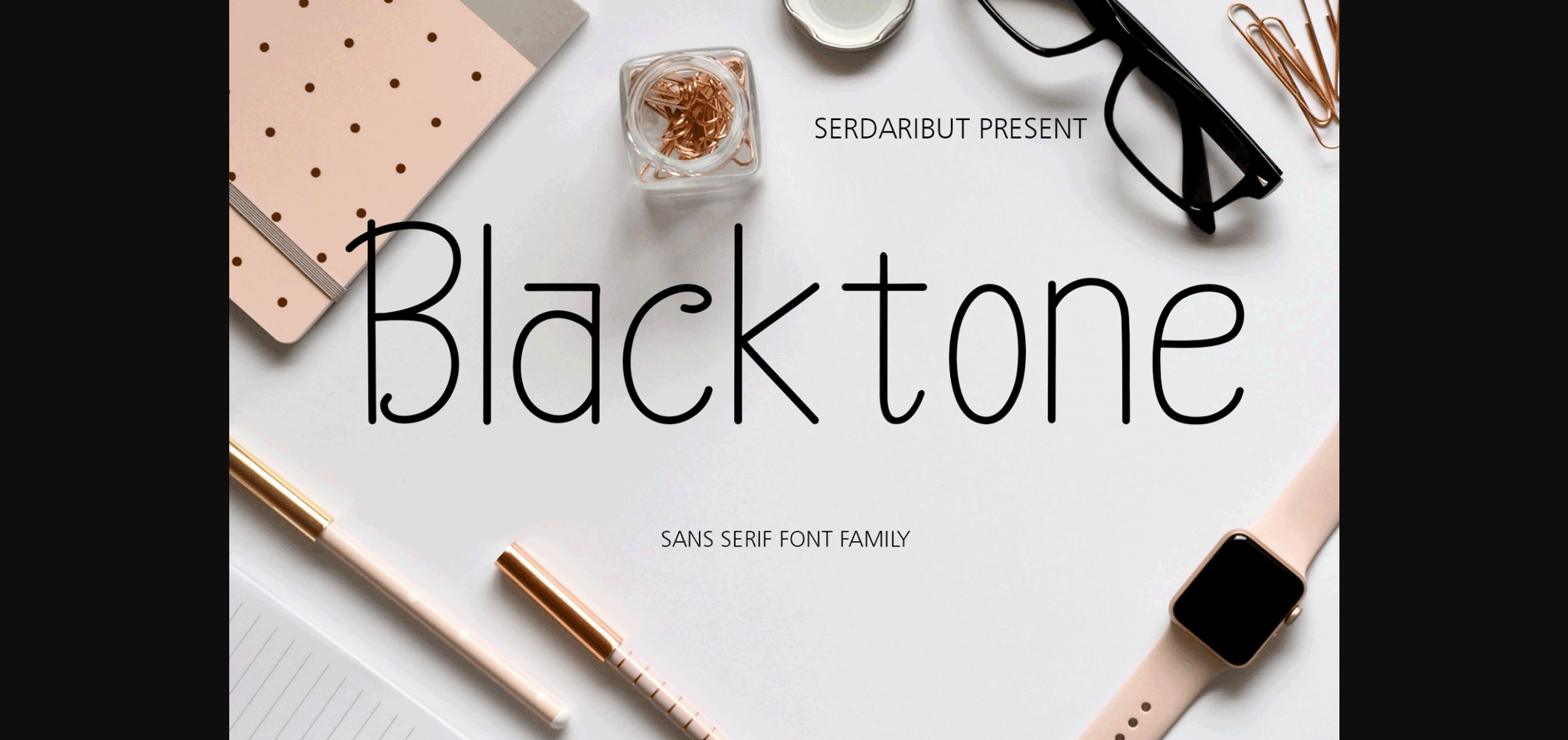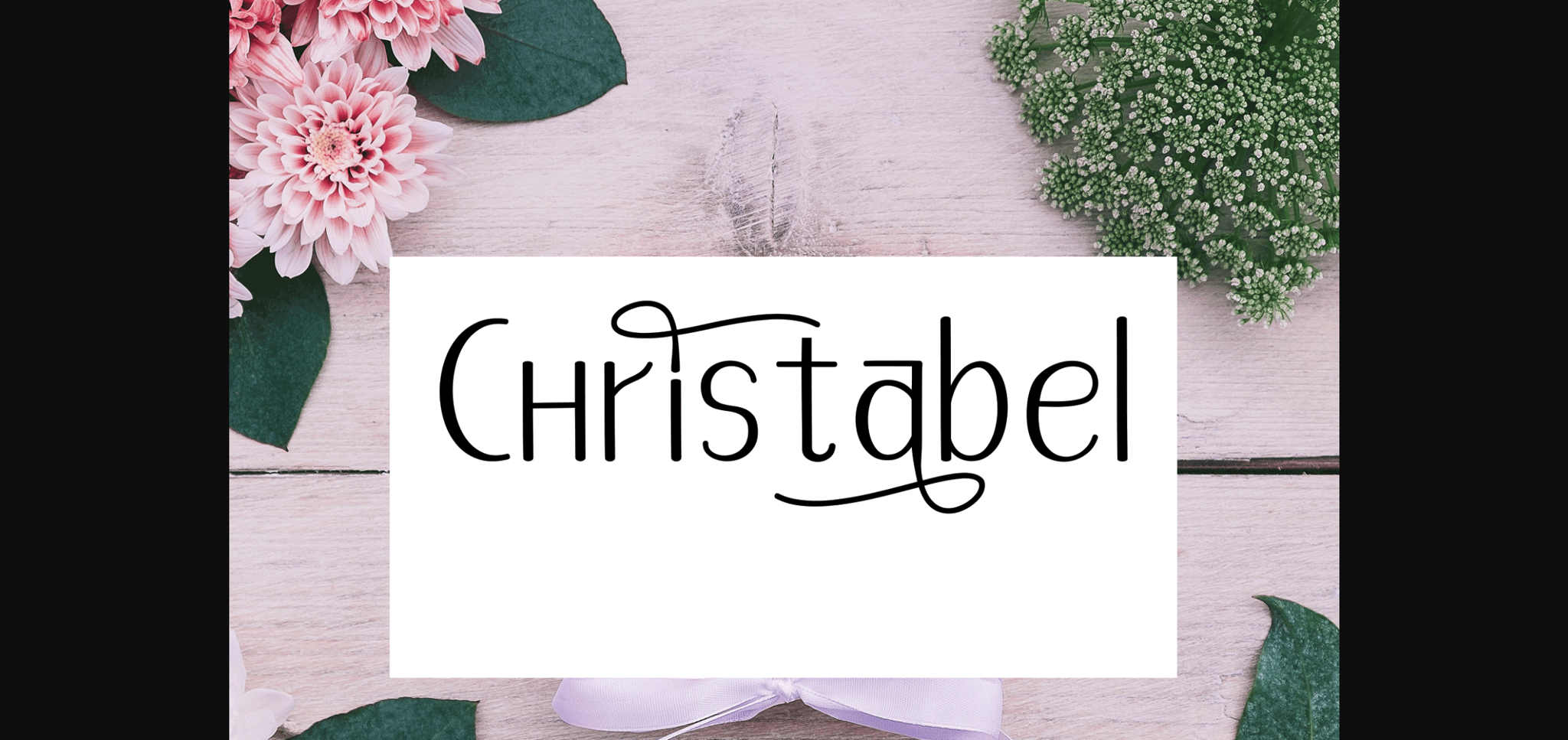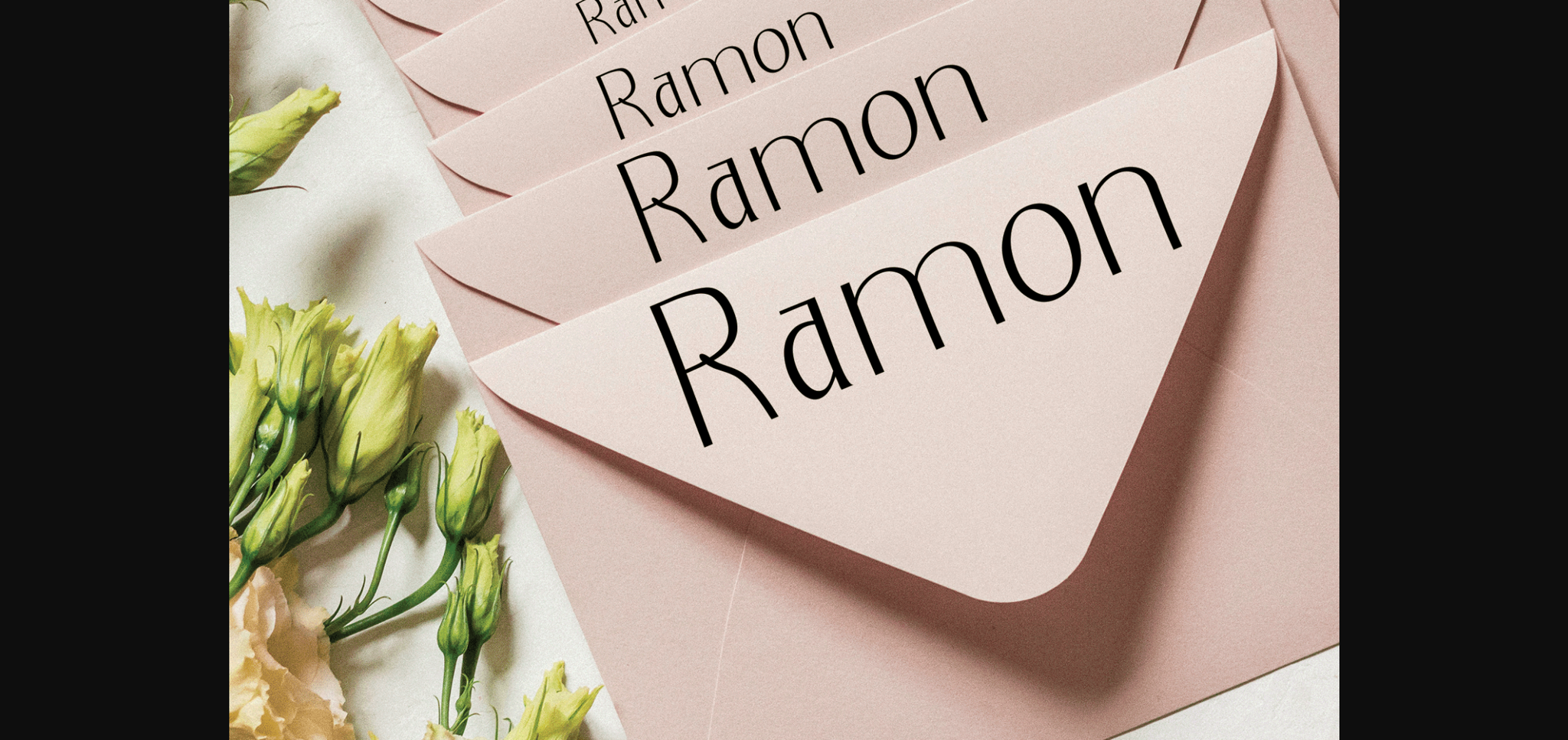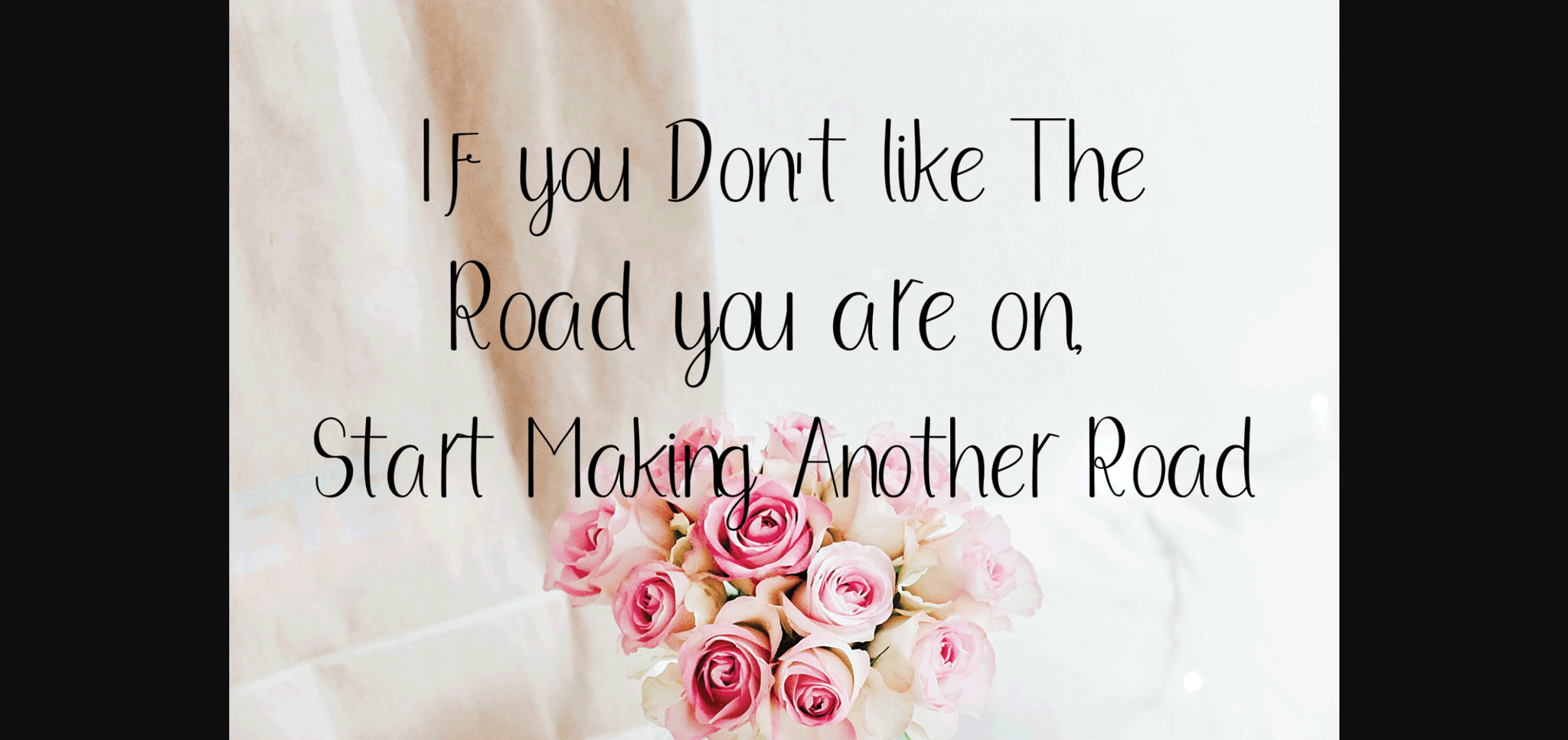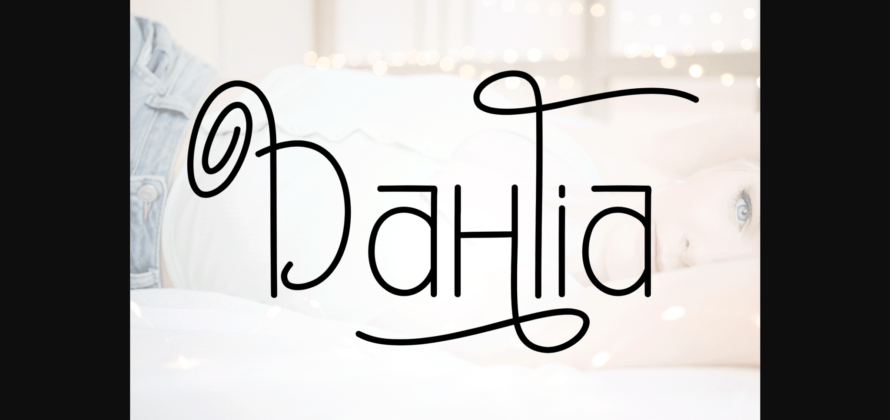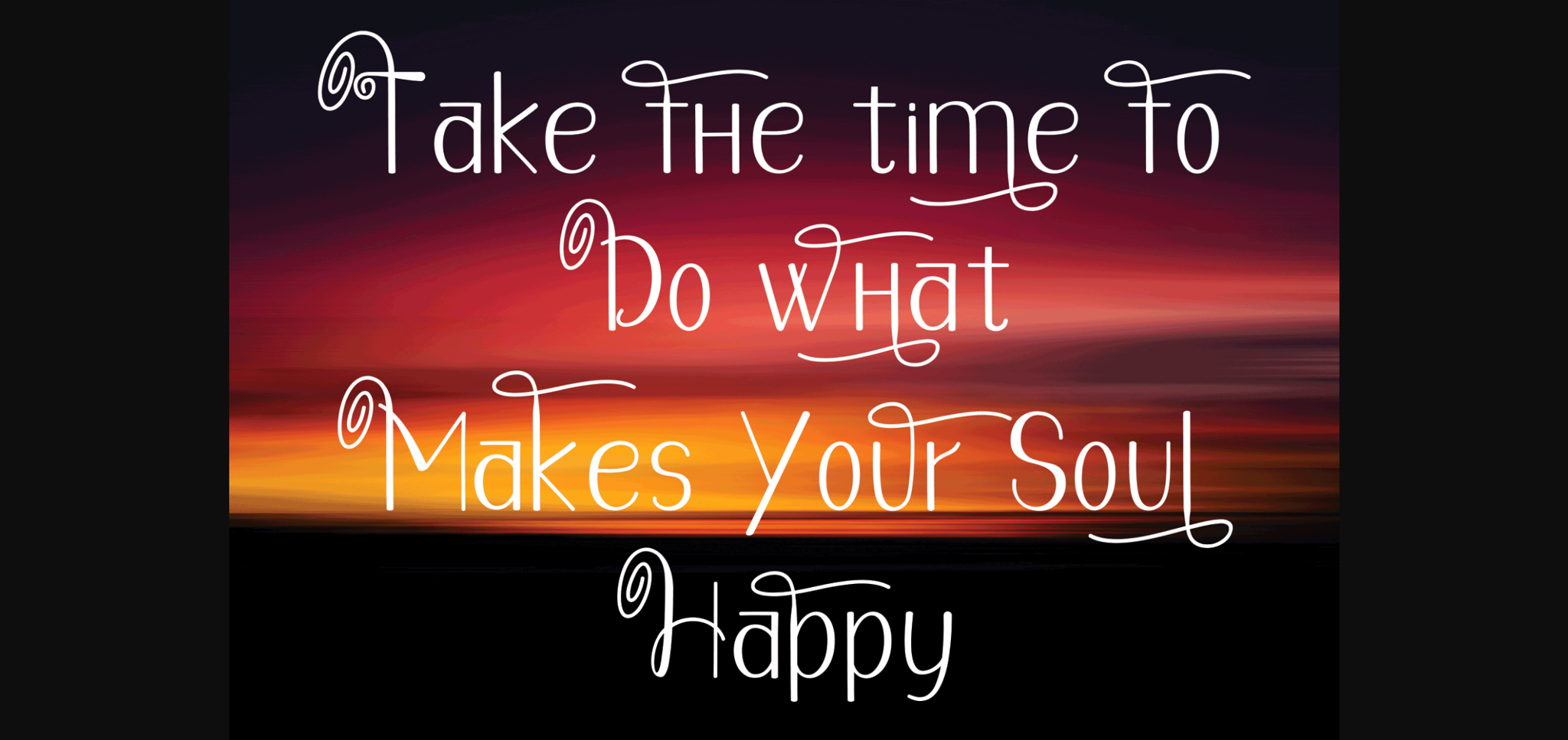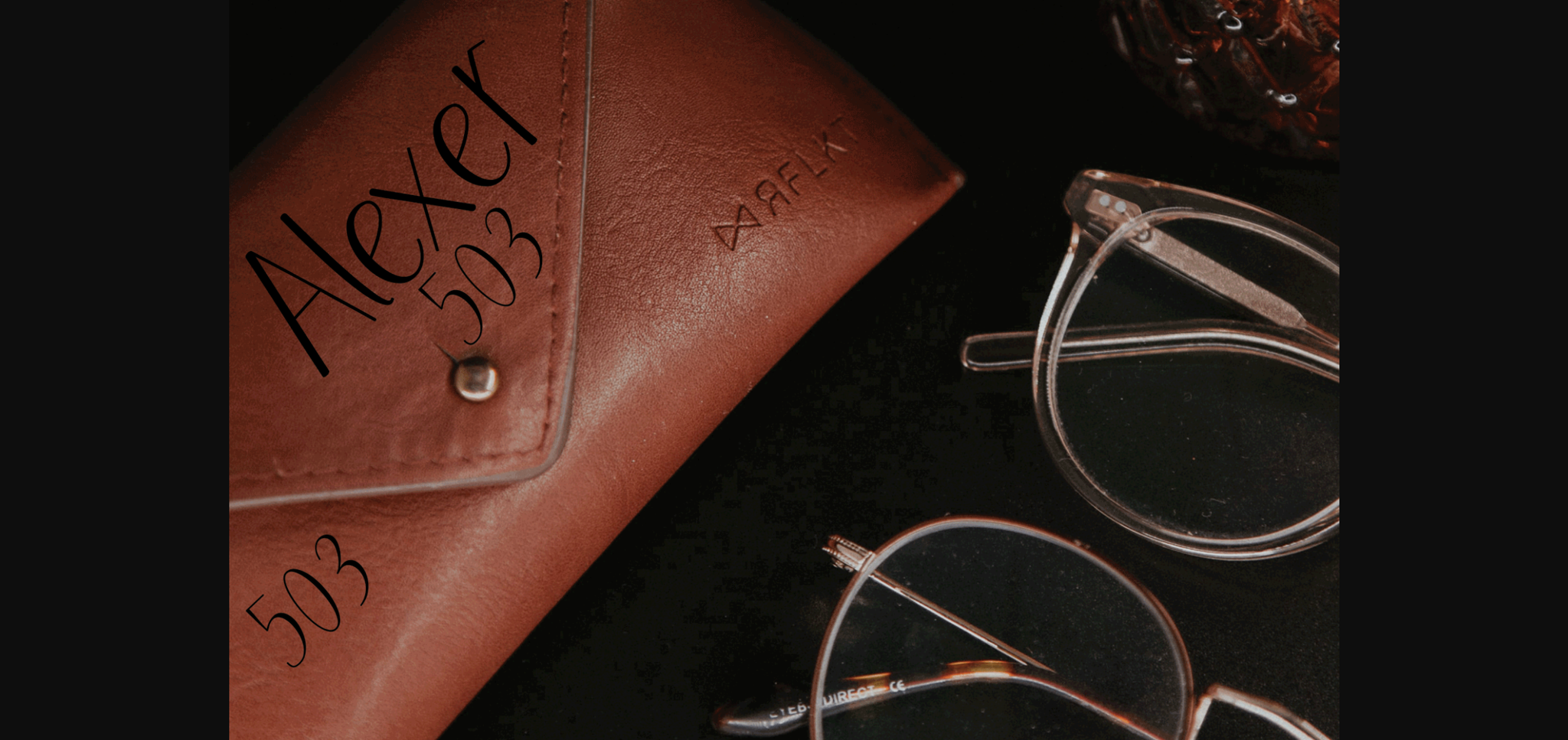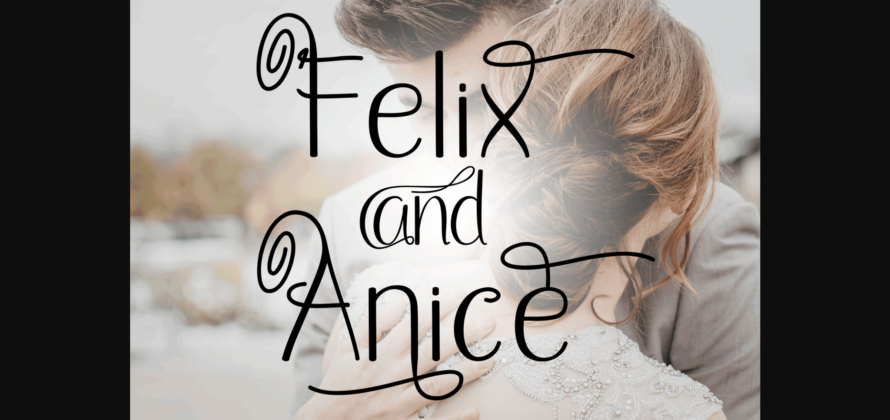
HomeSans Serif FontsBlack Tone Font Sans Serif Fonts Black Tone Font FacebookXPinterestWhatsApp 1 of 11 ... Black Tone Font Poster 2... Black Tone Font Poster 3... Black Tone Font Poster 4... Black Tone Font Poster 5... Black Tone Font Poster 6... Black Tone Font Poster 7... Black Tone Font Poster 8... Black Tone Font Poster 9... Black Tone Font Poster 10... Black Tone Font Poster 11... About Black Tone Font Black Tone is a thin lettered, elegant and romantic sans serif font. Fall in love with its incredibly versatile style and use it to create spectacular designs! DOWNLOAD NOW People also explored Cosed Font Bellahana Font Floweress Font Surfing Font Courtesy Font Baby Angel Font Written by Hand Wedding Script Font Fatherly Font 438 0 TagsBlack Tone Font Previous articleLoernull FontNext articleDanielo Font LEAVE A REPLY Cancel reply Comment: Please enter your comment! Name:* Please enter your name here Email:* You have entered an incorrect email address! Please enter your email address here Website: Save my name, email, and website in this browser for the next time I comment. Personal Use Free Cokobi Personal Use Free Read more about this font Vuldo Personal Use Free Read more about this font Entin Personal Use Free Read more about this font Lollipop Melody Personal Use Free Read more about this font BLOG 5 Fonts That Will Dominate Design Trends in 2026 5 Fonts for 2026 That Will Dominate Design Trends Typography plays a critical role in visual communication, and as we look ahead to 2026, it’s... Modern Sans-Serif Fonts That Brands Love in 2025 How to Install and Use Fonts on Windows, macOS, and Web Projects Best Fonts for T-Shirt Design – Top 2025 Picks